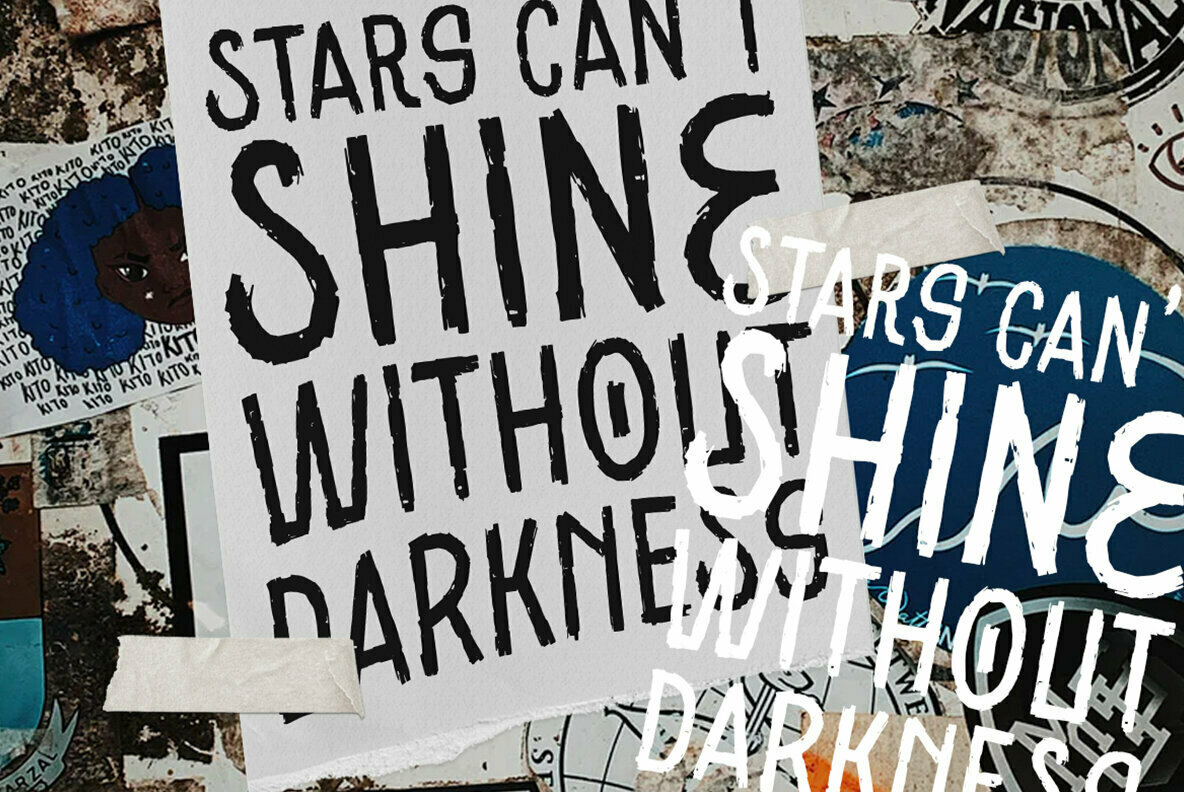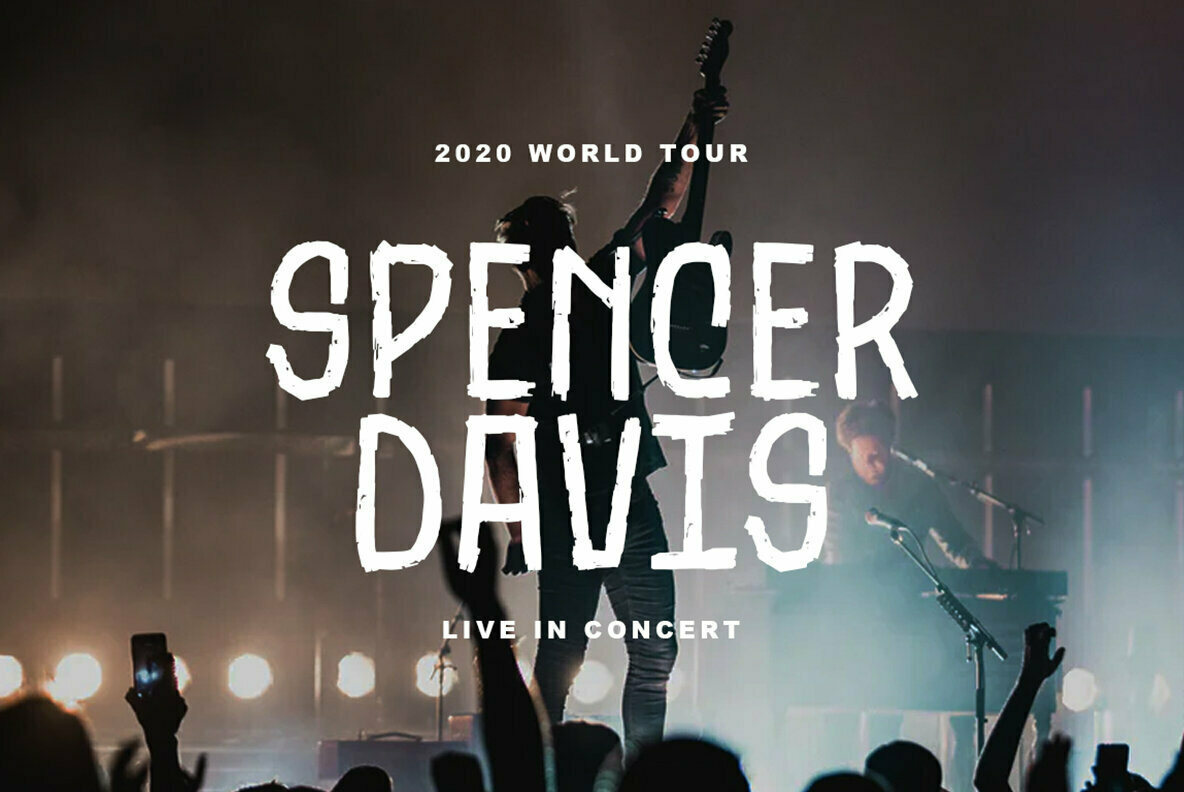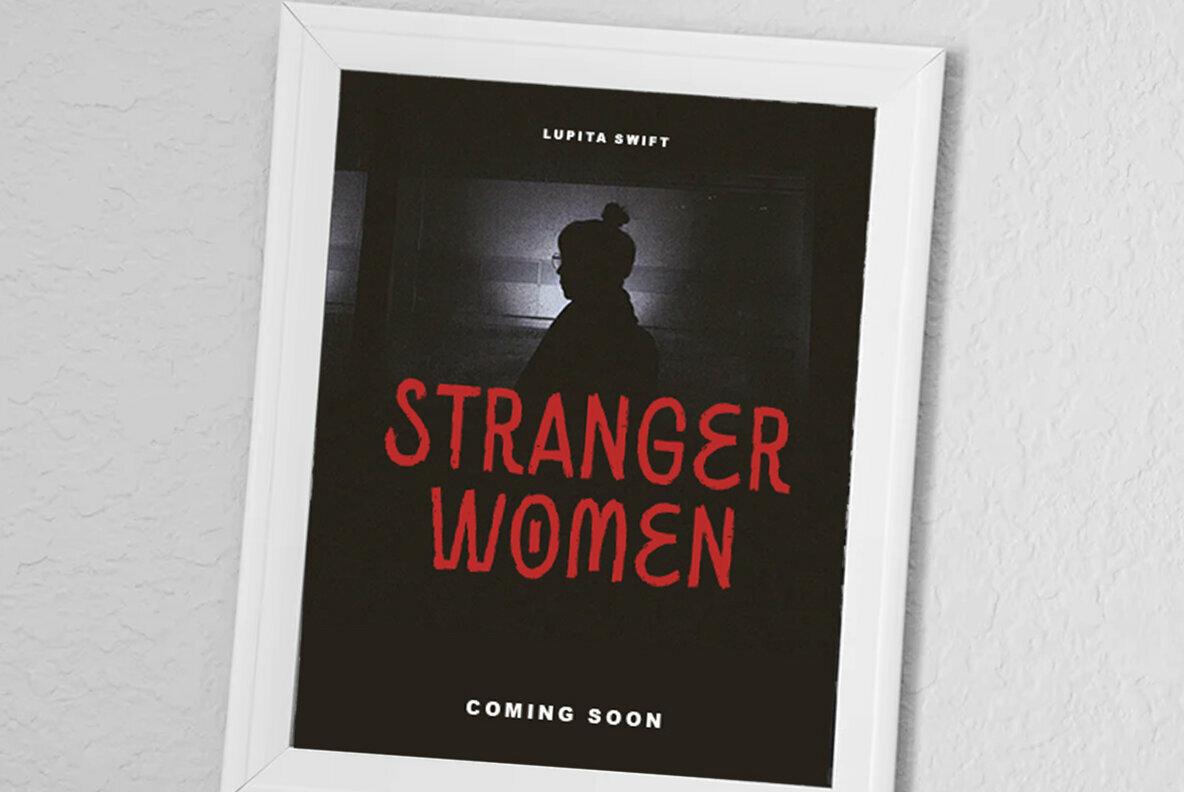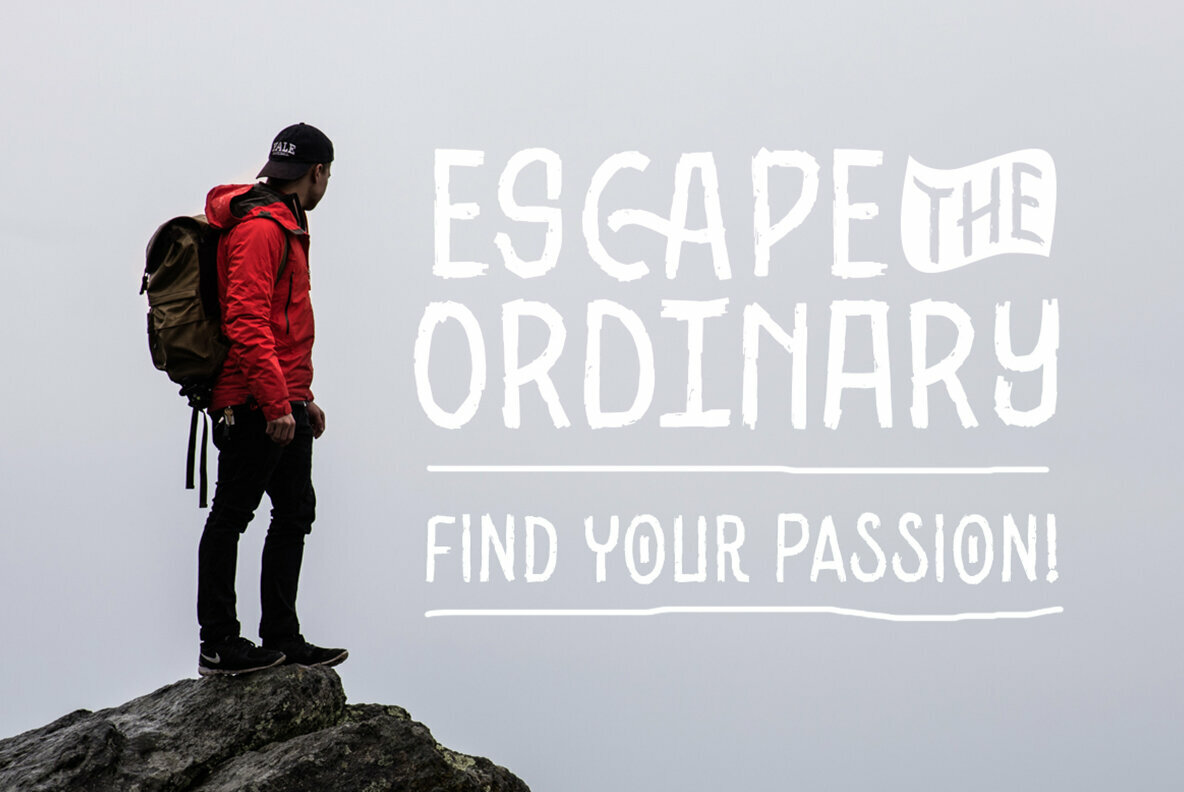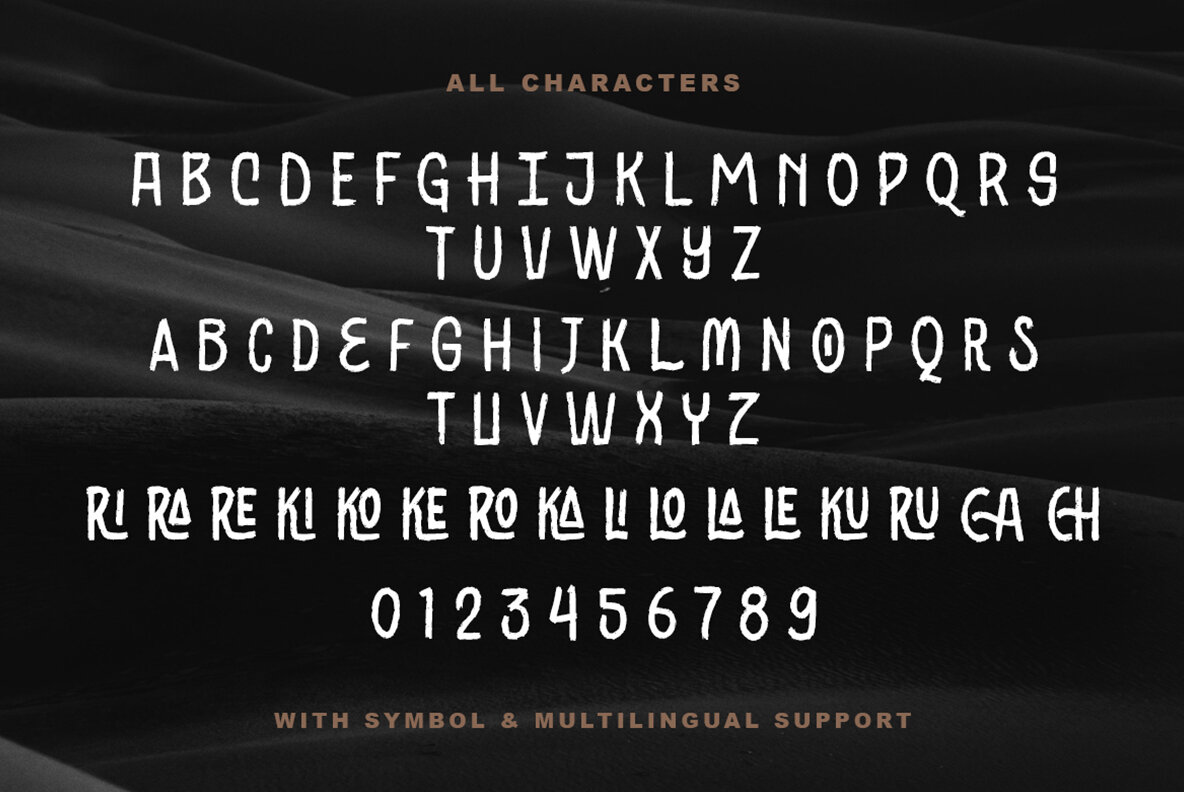
Brialor Font
Brialor Regular
Brialor offers a unique blend of strength and elegance as a brush typeface suited for a multitude of design projects. Its bold characteristics make it ideal for logos and more formal contexts, such as invitations and greeting cards, enhancing visual appeal with a robust quality. For optimal use, consider software that supports OpenType features and Glyphs panels, such as Adobe applications or Corel Draw, to leverage Brialor's complete range of typographic possibilities.Brialor: Bold Brush Typeface for Versatile Applications